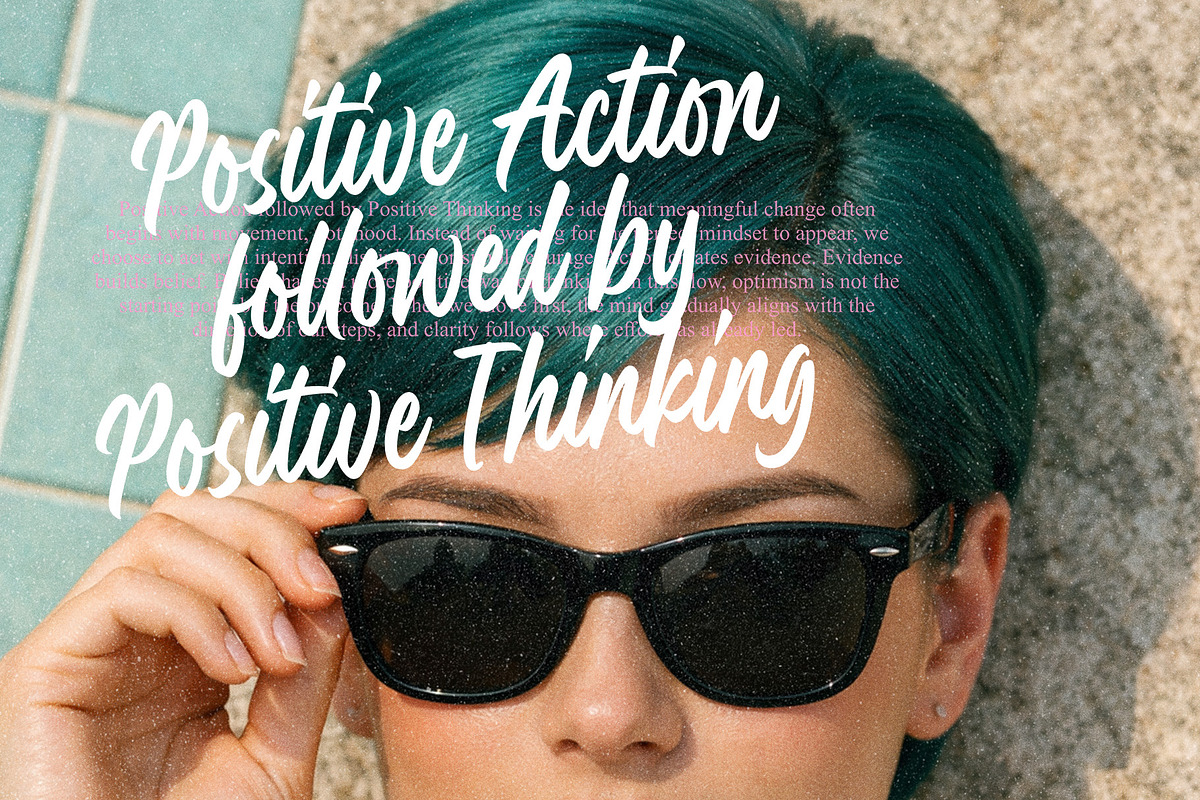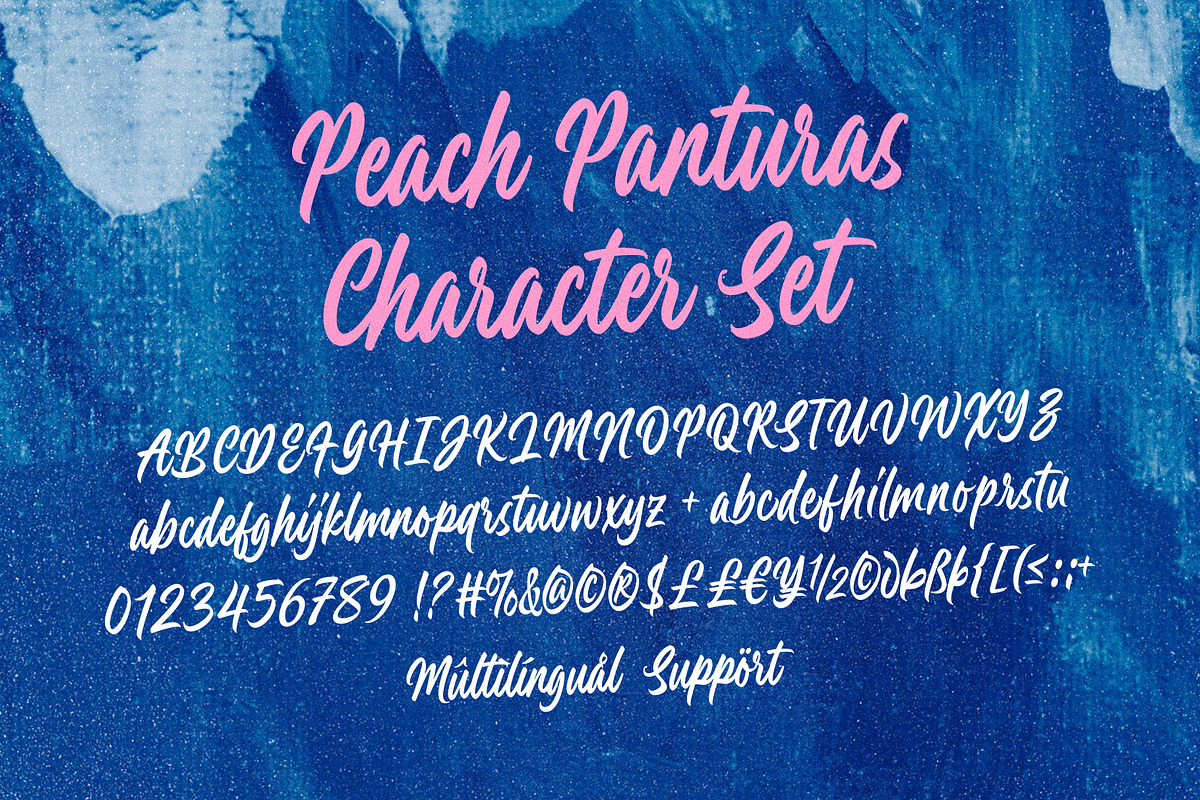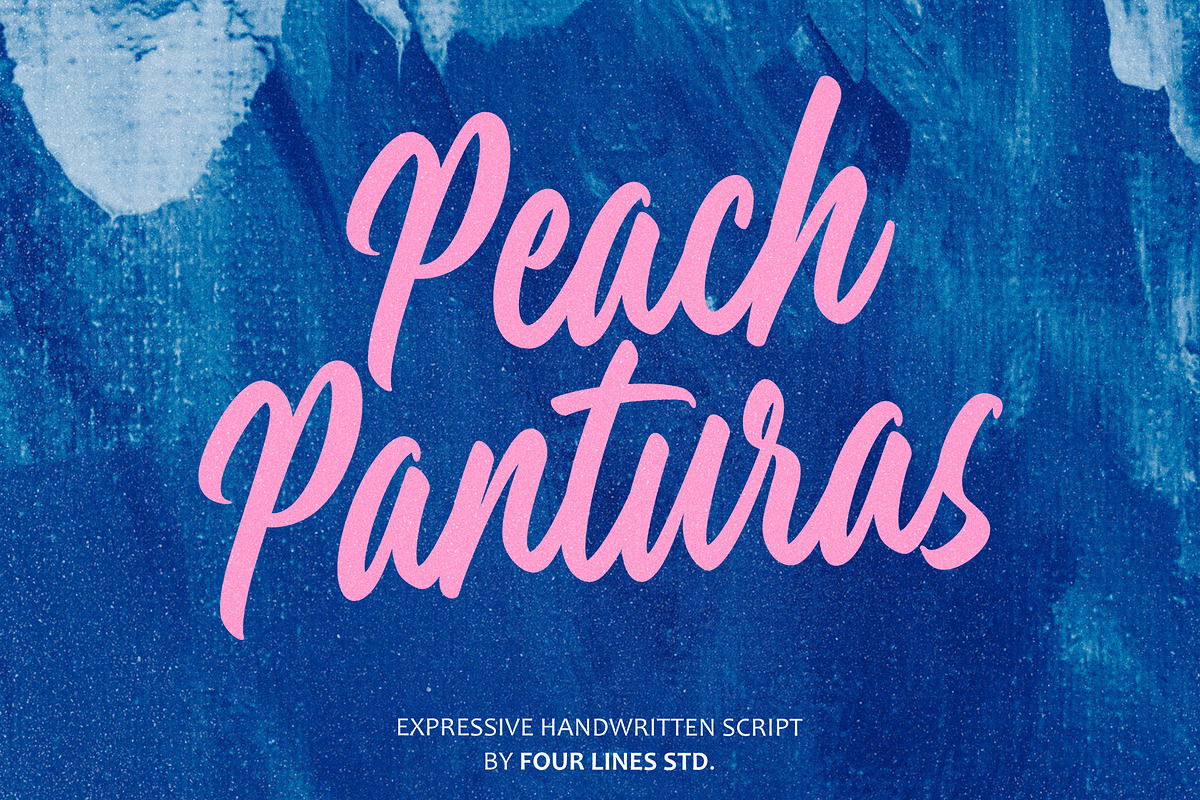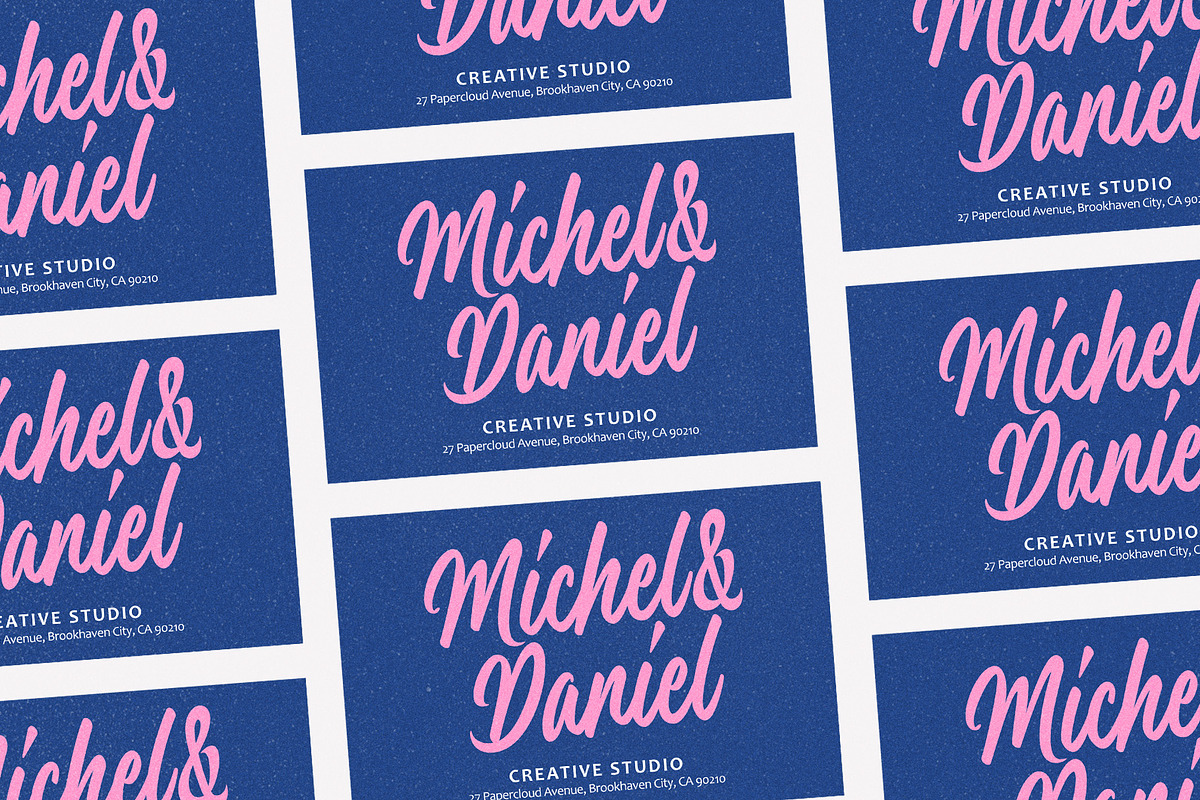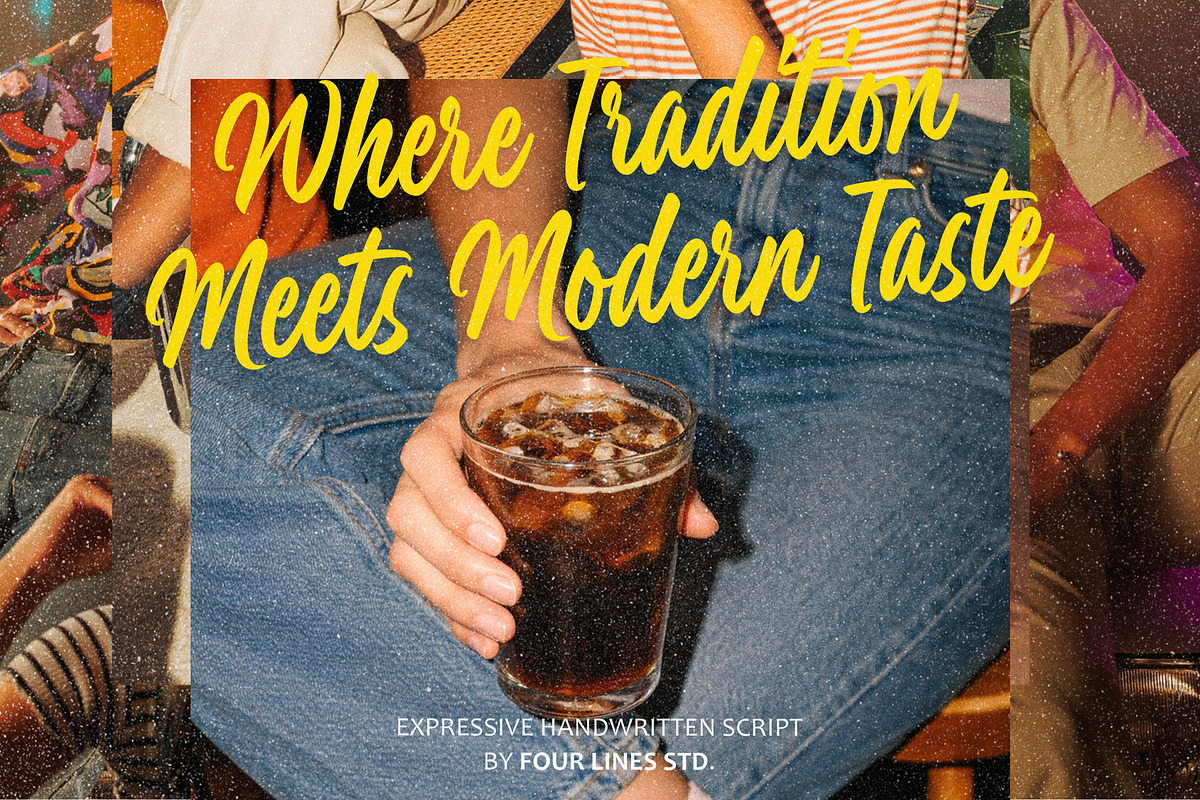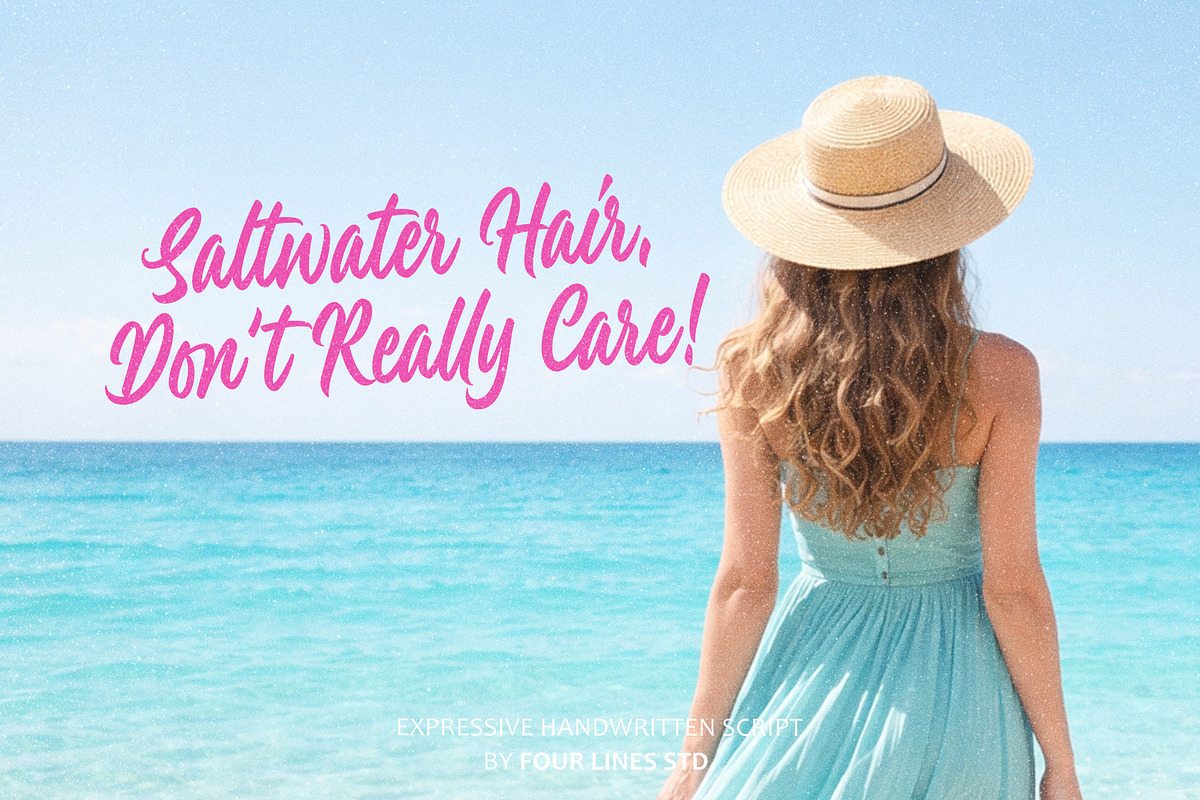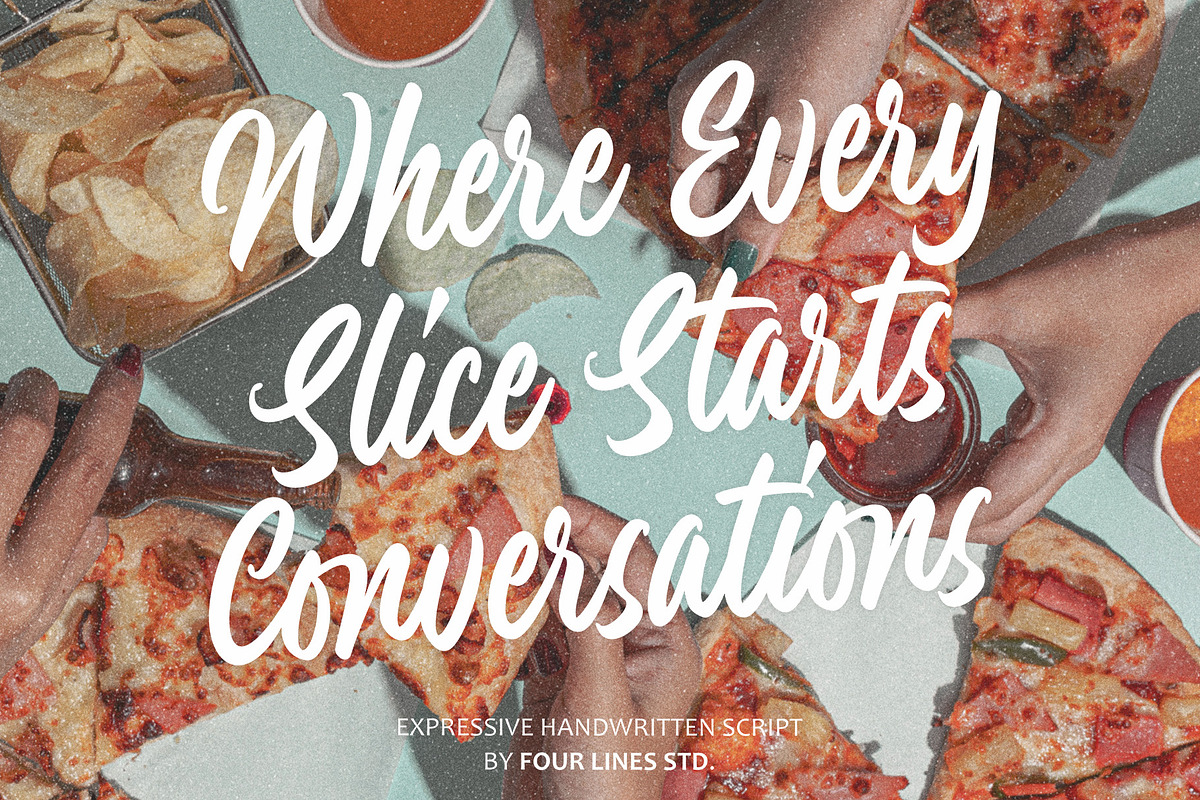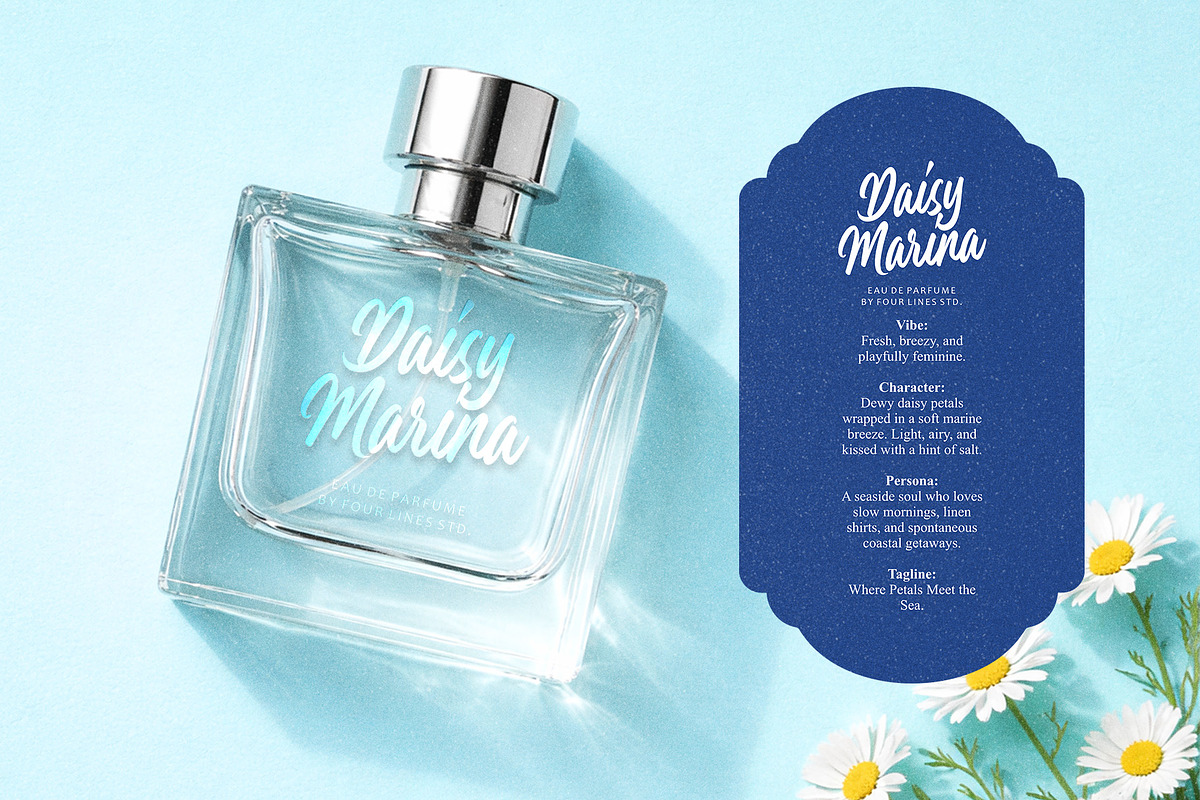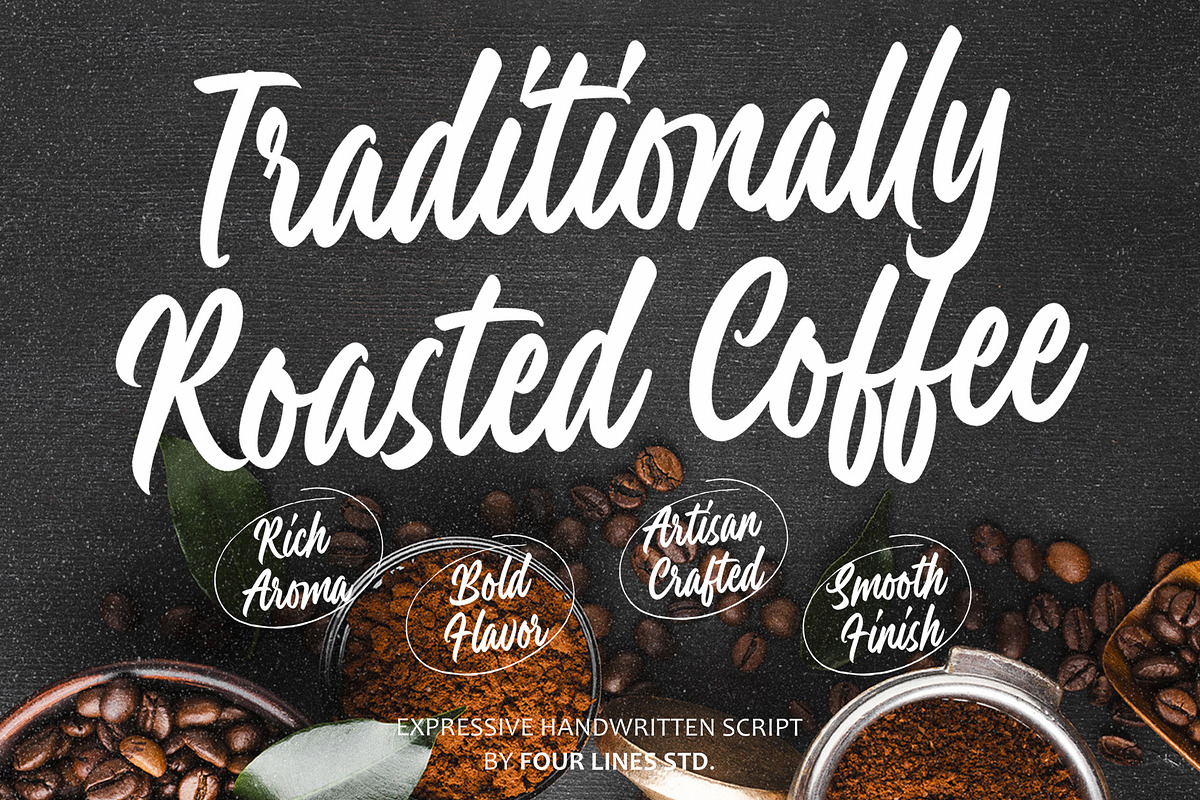
Peach Panturas – Expressive Handwri
Peach Panturas is a handwritten font featuring naturally flowing letterforms and a lively writing rhythm, creating a look that feels both personal and modern. It is perfect for branding headlines, product packaging, cafés and coffee shops, lifestyle products, summer-themed designs, and social media content that aims to feel friendly and inviting. Complete with uppercase and lowercase letters, numerals, punctuation, and multilingual support, Peach Panturas offers flexibility for a wide range of design needs and languages.